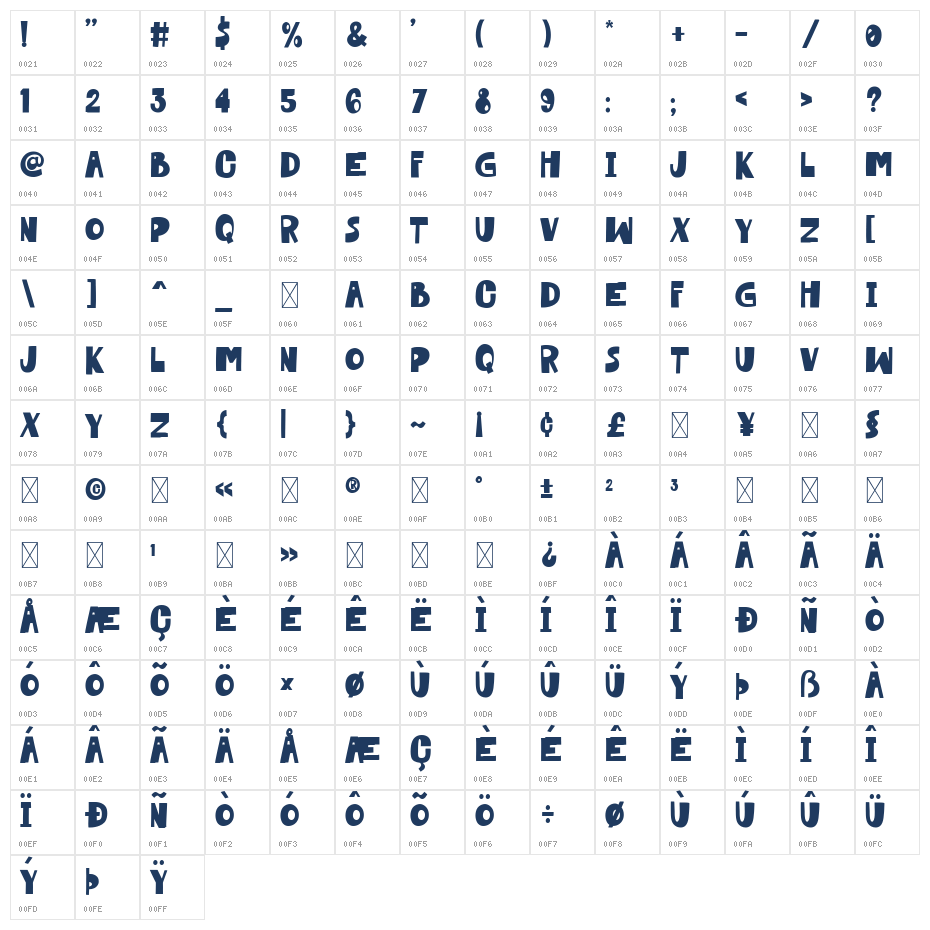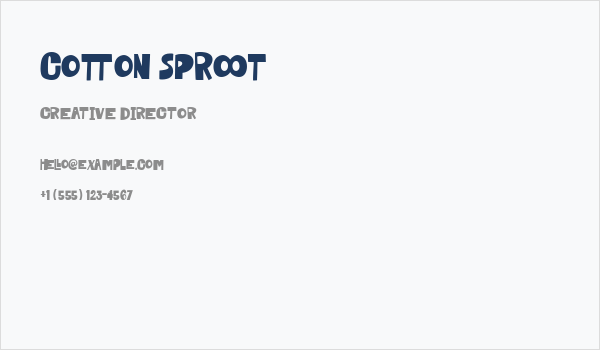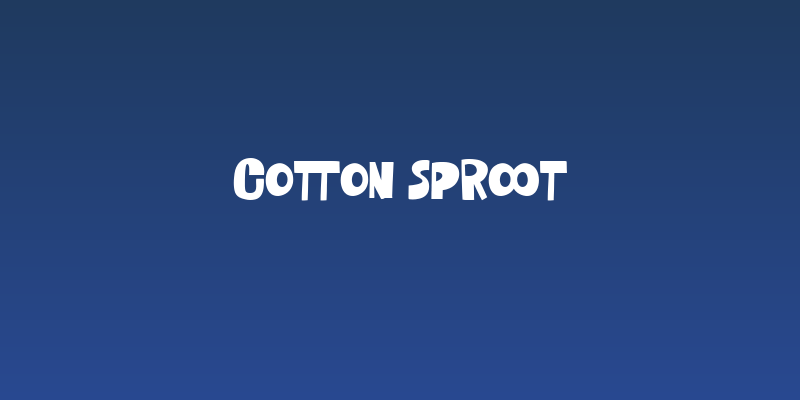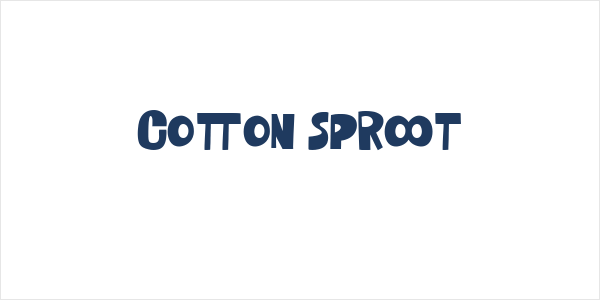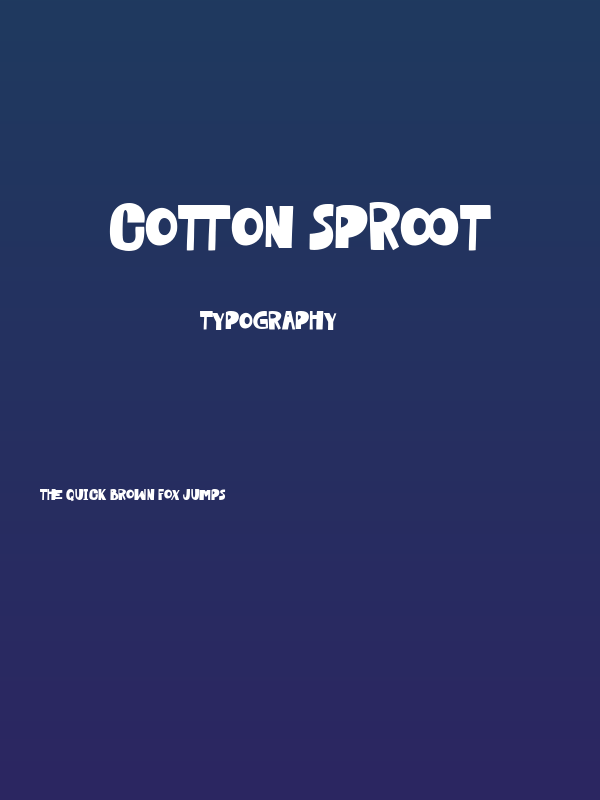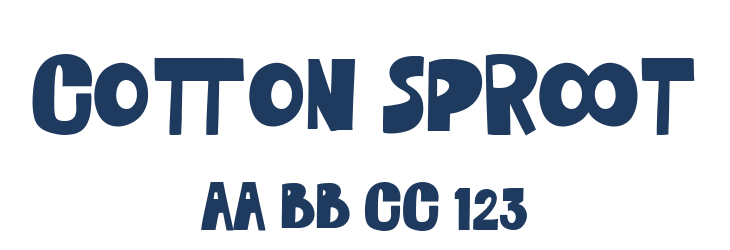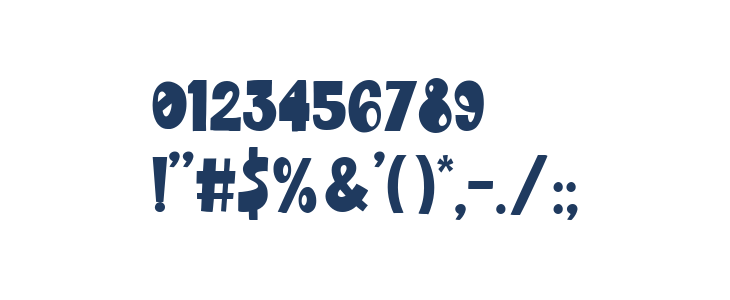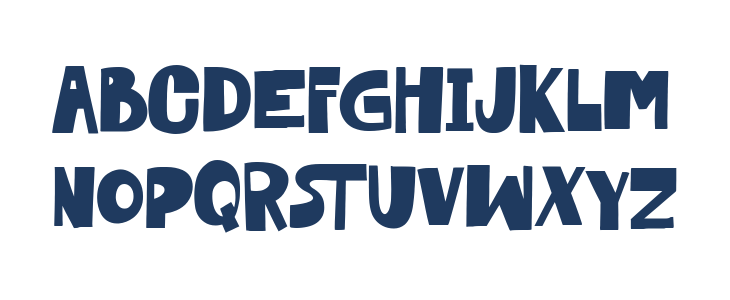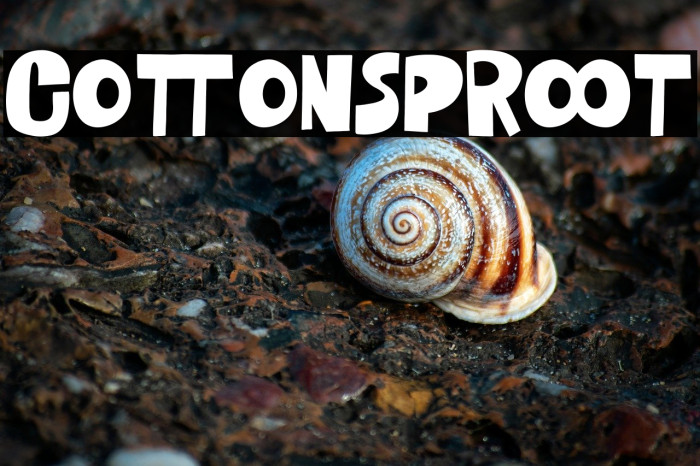
Cotton Sproot Font
Cotton Sproot Description
Bold, playful, and chunky display font with irregular, exaggerated letterforms.
| Overall Style | Playful, Cartoonish, Bold |
| Use Case | Headlines, Posters, Logos, Children's media |
| Author | Fonts by deFharo |